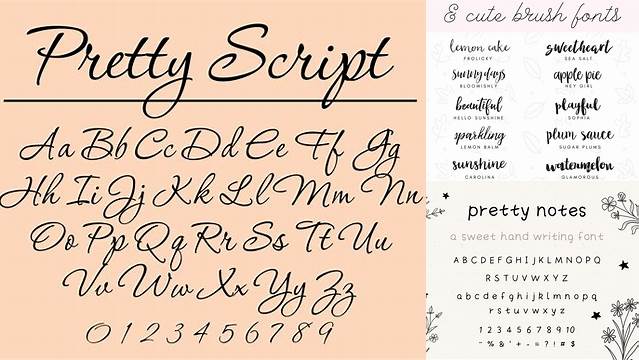
Pretty Fonts: Generate Unique Text Styles
Are you looking to add a touch of creativity and uniqueness to your text? Well, you've come to the right place! In this article, we'll dive into the world of pretty fonts and explore how you can use a font generator to create stunning text for various purposes. Whether you're designing social media posts, crafting invitations, or simply want to add some flair to your messages, we've got you covered. Let's explore the amazing world of fonts and how you can easily generate them. Choosing the right font can be the magic ingredient that transforms your content from ordinary to extraordinary. So, buckle up, and let's get started on this font-tastic journey!
Why Use Pretty Fonts?
Guys, let's talk about why pretty fonts are so important. Think about it – the font you use is like the voice of your words. A bland, default font can make even the most exciting message fall flat. But a beautiful, well-chosen font? That can make your text pop and grab attention. When we talk about pretty fonts, we're talking about more than just aesthetics. We're talking about setting the mood, conveying emotion, and making a statement. Imagine you're creating a birthday invitation. A playful, whimsical font will set a completely different tone than a formal, elegant one. It's all about matching the font to the message. And that's where the fun begins! The use of pretty fonts can significantly impact how your message is received and perceived. A carefully selected font not only enhances readability but also adds personality and character to your content, which is essential for capturing and retaining your audience's attention. It also reflects your style and taste, which is crucial in branding and personal expression.
So, why settle for boring when you can have bold, beautiful, and captivating? That's the power of pretty fonts, and that's why they're worth exploring. In today's digital age, where content is consumed in seconds, visually appealing text can make all the difference. Pretty fonts offer a visual break from the monotony of standard typography, making your content more engaging and memorable. From elaborate scripts to modern sans-serifs, the variety of pretty fonts available allows you to tailor your message perfectly to your audience and purpose. They can evoke feelings, set a tone, and even enhance understanding. For instance, a handwritten-style font might convey warmth and authenticity, while a geometric font might suggest modernity and innovation. Ultimately, the right pretty font elevates your content, turning simple words into a visual masterpiece.
Moreover, pretty fonts play a vital role in establishing brand identity and creating a consistent visual presence. Businesses and individuals alike can use unique font styles to differentiate themselves from competitors and build a recognizable brand image. A thoughtfully chosen font becomes synonymous with your brand, enhancing brand recall and recognition. Think about some of the most iconic brands – their logos and marketing materials often feature distinctive fonts that immediately identify them. In a world flooded with information, the visual impact of pretty fonts can cut through the noise and help you make a lasting impression. They enable you to communicate your message more effectively, whether it's through a website, social media, or print materials. By investing time in selecting the right fonts, you're investing in the overall quality and impact of your communication. So, embrace the power of pretty fonts and let them transform your words into a visual experience.
What is a Font Generator?
Okay, so you're sold on the idea of pretty fonts, but how do you actually get them? That's where a font generator comes in! Think of it as a magical tool that can transform your plain text into a dazzling array of stylish fonts. A font generator is essentially a web-based application that allows you to type in your text and then instantly see it rendered in a variety of different fonts. It's like having a font library at your fingertips, without having to download and install anything. These tools are super user-friendly, making it easy for anyone – even those with no design experience – to create eye-catching text. Most font generators offer a wide range of styles, from elegant scripts and playful handwritten fonts to bold, modern typefaces. This variety ensures that you can find the perfect font to match your project, whether it's a social media post, a wedding invitation, or a logo design.
Font generators are a fantastic resource because they eliminate the need to manually search for and download individual fonts. Traditionally, finding and using new fonts involved browsing font websites, downloading font files, and installing them on your computer. This process could be time-consuming and sometimes even complicated, especially for those unfamiliar with font management. Font generators streamline this process by offering a simple, intuitive interface where you can instantly preview and generate text in various styles. This ease of use makes them ideal for quick projects and experimentation. You can try out different fonts, compare them side-by-side, and choose the one that best fits your needs without any hassle. The best part? Most font generators are free to use, making them accessible to everyone.
Furthermore, font generators often provide additional customization options that enhance your creative control. Beyond simply changing the font style, many generators allow you to adjust the size, color, and spacing of your text. Some even offer decorative elements like shadows, outlines, and gradients to further personalize your design. This level of customization ensures that you can create text that is truly unique and tailored to your specific vision. Font generators are also valuable tools for content creators and marketers who need to produce visually appealing content quickly. They can be used to generate headings, captions, and call-to-action text that stands out and grabs attention. By making it easy to experiment with different fonts and styles, font generators empower you to elevate your content and engage your audience more effectively. So, if you're looking for a simple and efficient way to add some visual flair to your text, a font generator is definitely your new best friend.
How to Use a Font Generator
Using a font generator is a breeze, guys! Seriously, it's so simple. Most font generators have a similar layout, which typically includes a text input box and a display area where you can see your text in various font styles. To get started, all you need to do is type your text into the input box. As you type, the font generator will automatically display your text in a variety of different fonts below. You can then scroll through the options and choose the one you like best. Many font generators also allow you to customize the size, color, and other aspects of your text. Once you've found the perfect font, you can usually copy the generated text and paste it into your document, social media post, or wherever else you need it. Some generators also provide options for downloading the text as an image, which can be useful for certain applications. The key is to play around with different options until you find the style that perfectly matches your vision. The simplicity and accessibility of these tools make them perfect for everyone, regardless of their design skills.
The process of using a font generator is designed to be intuitive and user-friendly, ensuring that even beginners can easily create stylish text. Most generators feature a clean and straightforward interface, making navigation a cinch. After inputting your text, the generator typically presents a wide array of font options, ranging from elegant scripts to bold, modern styles. This diverse selection allows you to explore different aesthetics and find the font that best conveys your message. Many font generators also offer real-time previews, so you can see exactly how your text will look in each font before making a decision. This feature is particularly helpful for ensuring that your chosen font is both visually appealing and legible in your intended context.
Furthermore, customization options often enhance the user experience with font generators. You can typically adjust the size, color, and spacing of your text, giving you greater control over the final result. Some generators even offer advanced features like adding shadows, outlines, or gradients to your text, allowing for even more creative expression. Once you've finalized your design, most generators provide multiple ways to use your created text. You can copy and paste the text directly into your document or social media post, or you can download it as an image file for use in graphic design projects. The versatility of font generators makes them a valuable tool for a wide range of applications, from creating eye-catching social media content to designing professional-looking marketing materials. So, whether you're a seasoned designer or a casual user, a font generator can help you elevate your text and make a lasting impression.
There are several options for generating texts
There are several options for generating texts. When it comes to crafting engaging and effective content, you have numerous tools and techniques at your disposal. From classic word processors and design software to innovative online platforms and AI-powered writing assistants, the possibilities are virtually limitless. Each option offers unique advantages, whether it’s the precision of professional design tools, the speed of automated content creation, or the collaborative capabilities of online editors. Experimenting with different methods can help you discover the perfect approach for your specific needs. Consider your goals, resources, and the style of content you want to produce. Whether you’re writing a novel, designing a marketing campaign, or simply creating a personal message, the right tools can transform your ideas into compelling text that captivates your audience. So, explore the diverse world of text generation and find the methods that empower your creative vision.